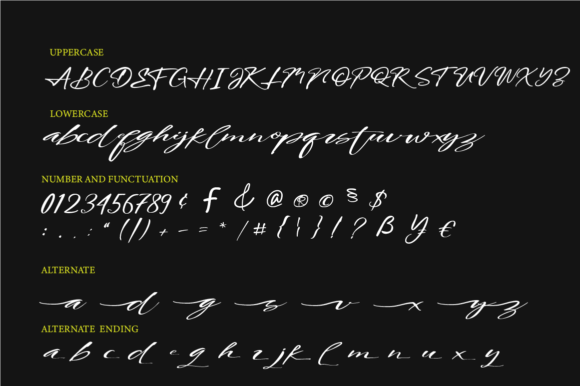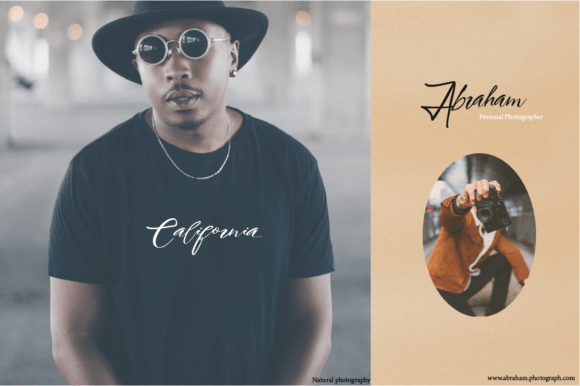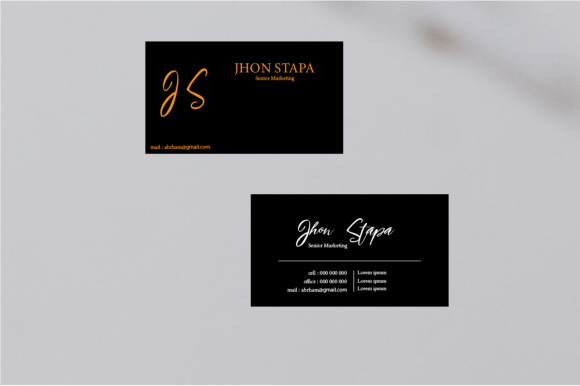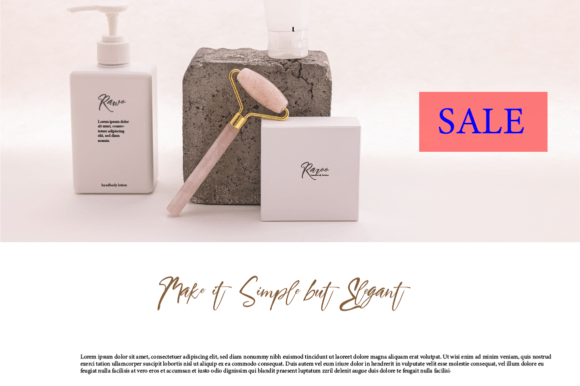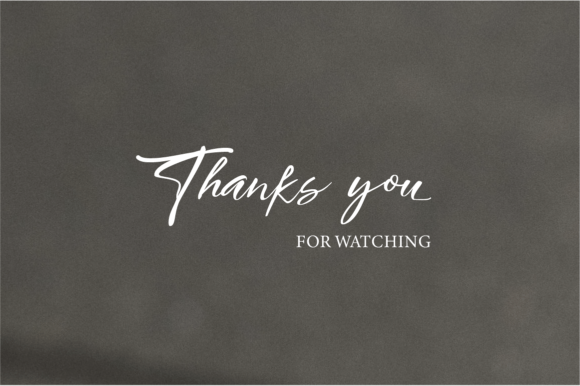
Abraham Font: Elevate Your Designs with Elegance and Sophistication
In the world of design, typography plays a crucial role in conveying the tone and aesthetic of a project. Whether you’re a seasoned designer or a crafty DIY enthusiast, finding the right font can make all the difference. If you’re looking for a font that exudes elegance and sophistication, look no further than the Abraham Font. This magical handwritten font is carefully crafted to add a touch of refinement to your designs, making it perfect for a wide range of creative projects.
What is Abraham Font?
Abraham Font is a beautiful, handwritten script font that is designed to bring a touch of luxury to your designs. With its flowing lines and intricate details, this font is sure to impress. Whether you’re looking to create stunning Instagram posts, elegant calligraphy scripts, or eye-catching DIY projects, Abraham Font is the perfect choice. Its versatility and elegance make it an excellent addition to any designer’s toolkit.
Key Features of Abraham Font
• Handwritten Script: Abraham Font features a beautiful, handwritten script that adds a personal touch to your designs.
• Elegant and Sophisticated: The font’s flowing lines and intricate details give it an air of elegance and sophistication, making it perfect for high-end designs.
• Versatile: Abraham Font can be used for a wide range of projects, from Instagram posts and calligraphy scripts to DIY projects and more.
• Easy to Read: Despite its ornate details, Abraham Font is easy to read, making it perfect for designs that require a clear and concise message.
Uses for Abraham Font
Abraham Font is an incredibly versatile font that can be used for a wide range of projects. Here are just a few ideas to get you started:
• Instagram Posts: Add a touch of elegance to your Instagram posts with Abraham Font. Use it to create stunning quotes, announcements, and more.
• Calligraphy Scripts: Abraham Font is perfect for calligraphy scripts, adding a touch of sophistication to your DIY projects.
• DIY Projects: Use Abraham Font to add a personal touch to your DIY projects, such as handmade cards, gift tags, and more.
• Branding and Packaging: Abraham Font is also perfect for branding and packaging projects, adding a touch of luxury to your product labels and marketing materials.
Tips for Using Abraham Font
Here are a few tips for getting the most out of Abraham Font:
• Use it Sparingly: Abraham Font is a statement font, so use it sparingly to add emphasis to your designs.
• Pair it with Other Fonts: Experiment with pairing Abraham Font with other fonts to create a unique and visually appealing design.
• Adjust the Size: Don’t be afraid to adjust the size of Abraham Font to create visual interest and hierarchy in your designs.
Abraham Font is a magical handwritten font that is sure to elevate your designs to the next level. With its elegant and sophisticated style, versatility, and ease of use, it’s the perfect choice for designers and crafters alike. Whether you’re looking to create stunning Instagram posts, elegant calligraphy scripts, or eye-catching DIY projects, Abraham Font is the perfect tool for the job. So why wait? Download Abraham Font today and start adding a touch of elegance to your designs!